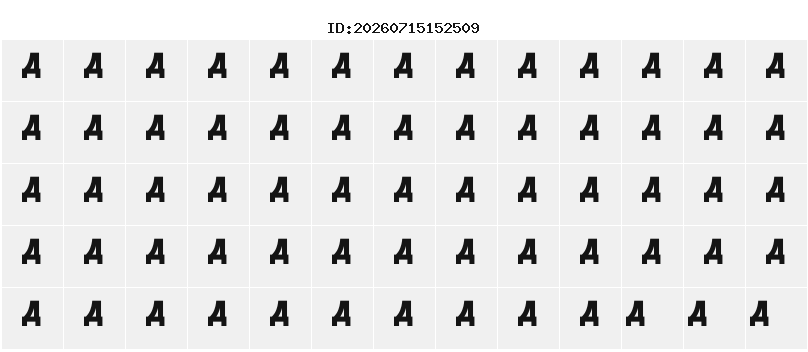
alghorie bald Preview
About alghorie bald.ttf
alghorie bald.ttf is a modern, elegant sans-serif font designed for ultimate readability and visual harmony. Perfect for branding, headlines, web design, and print materials.